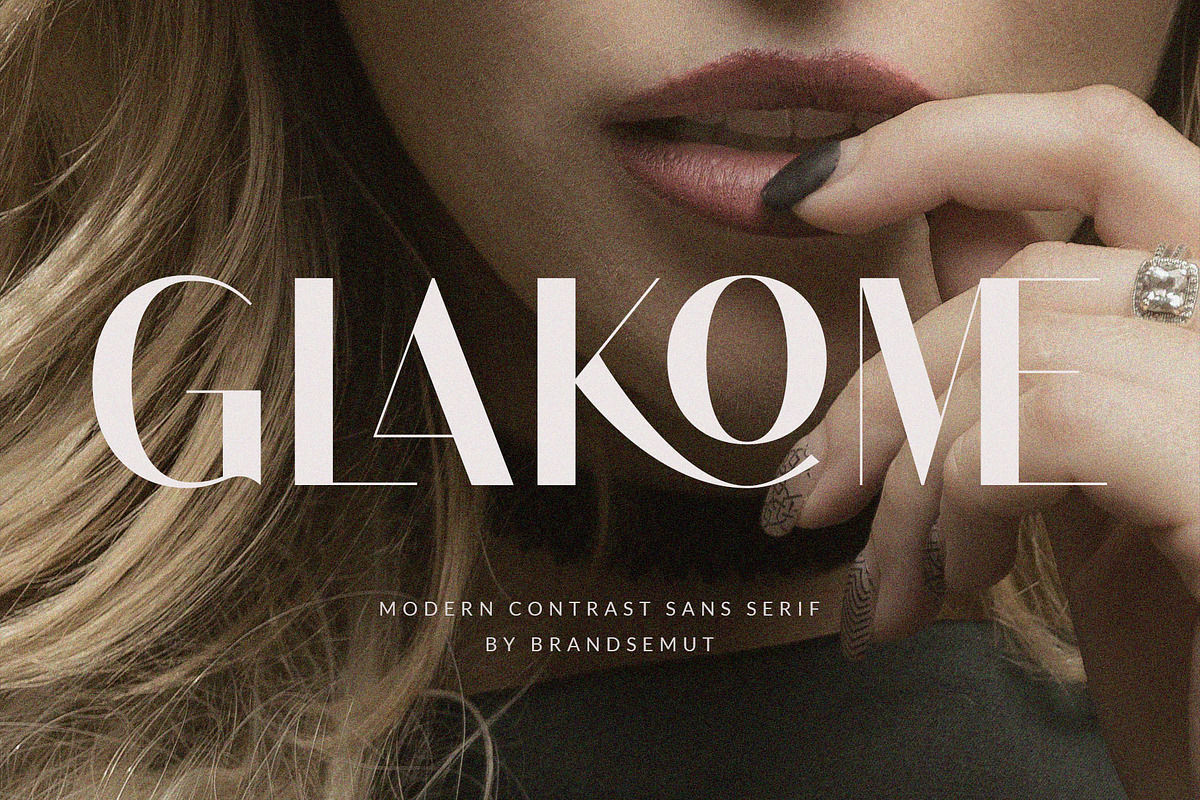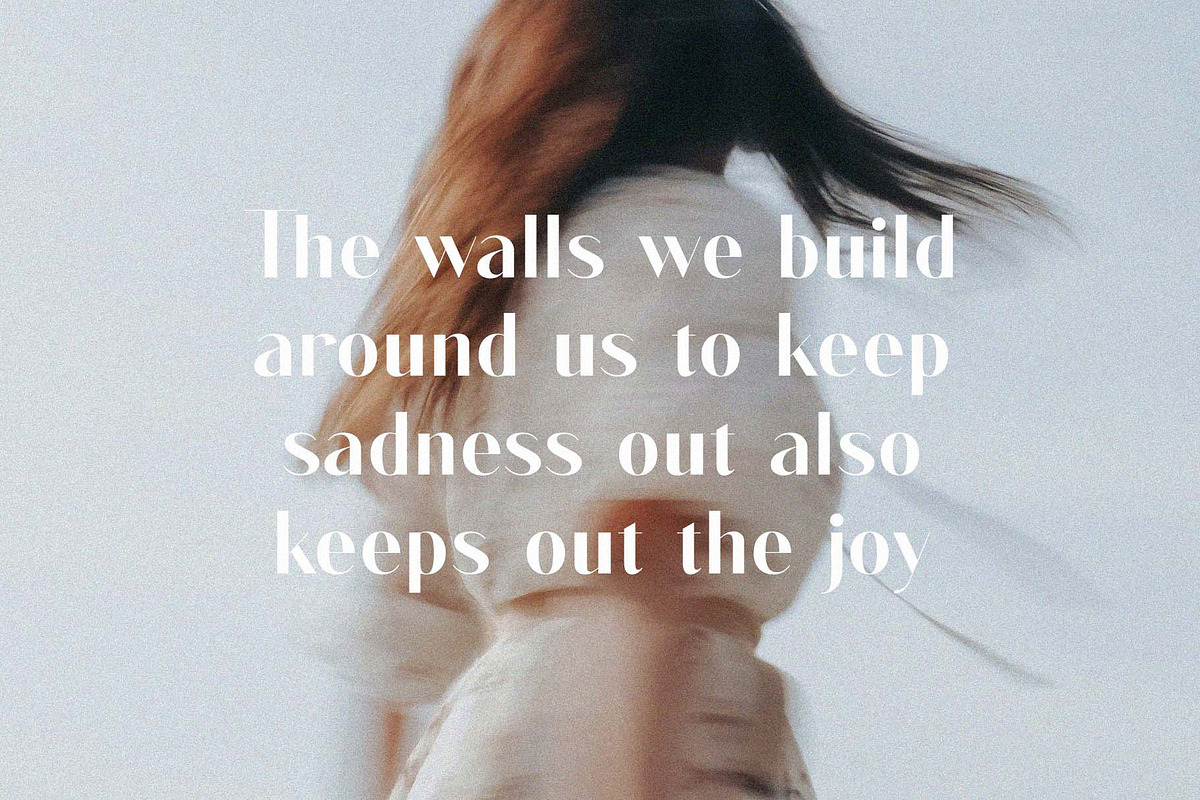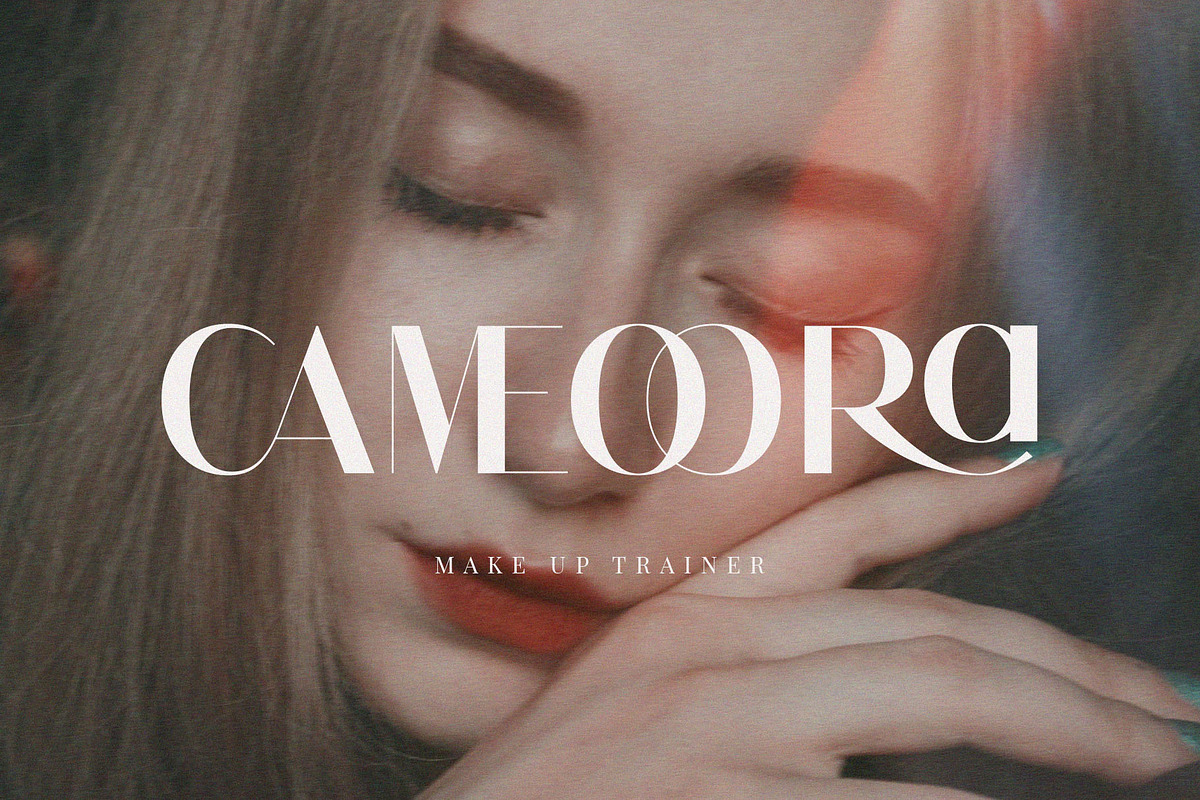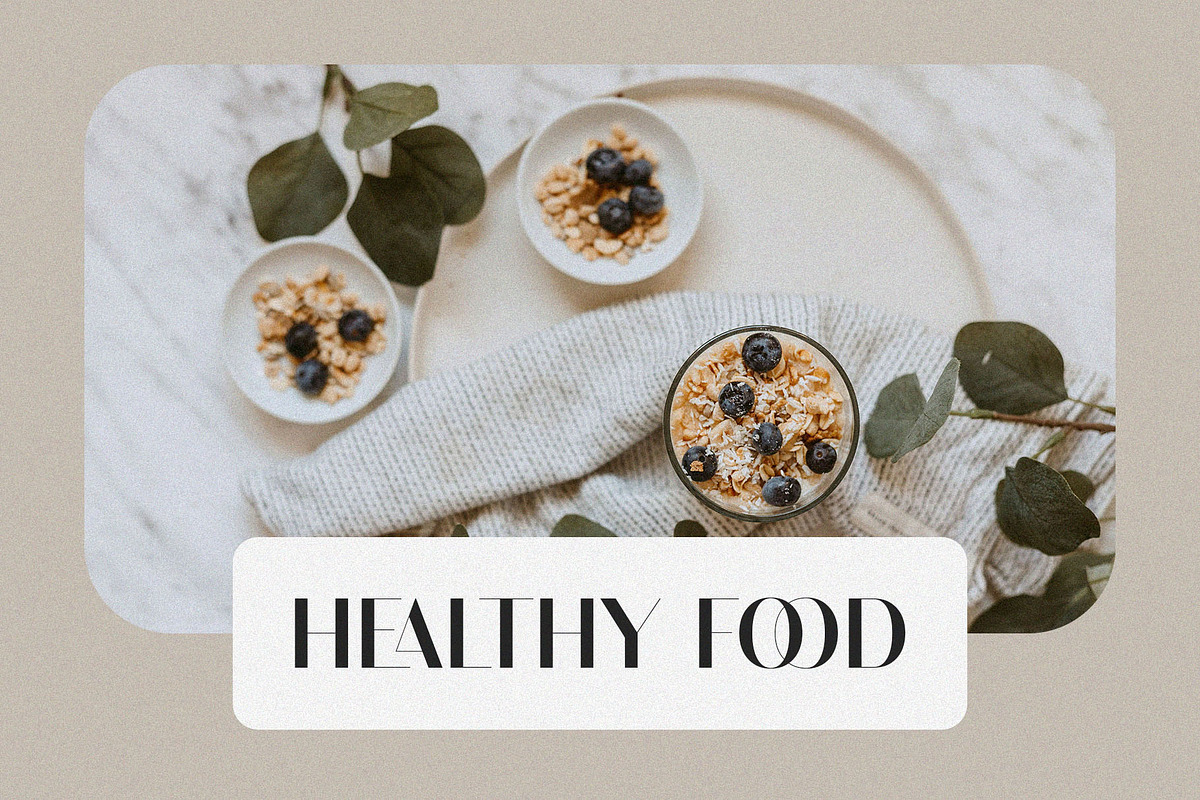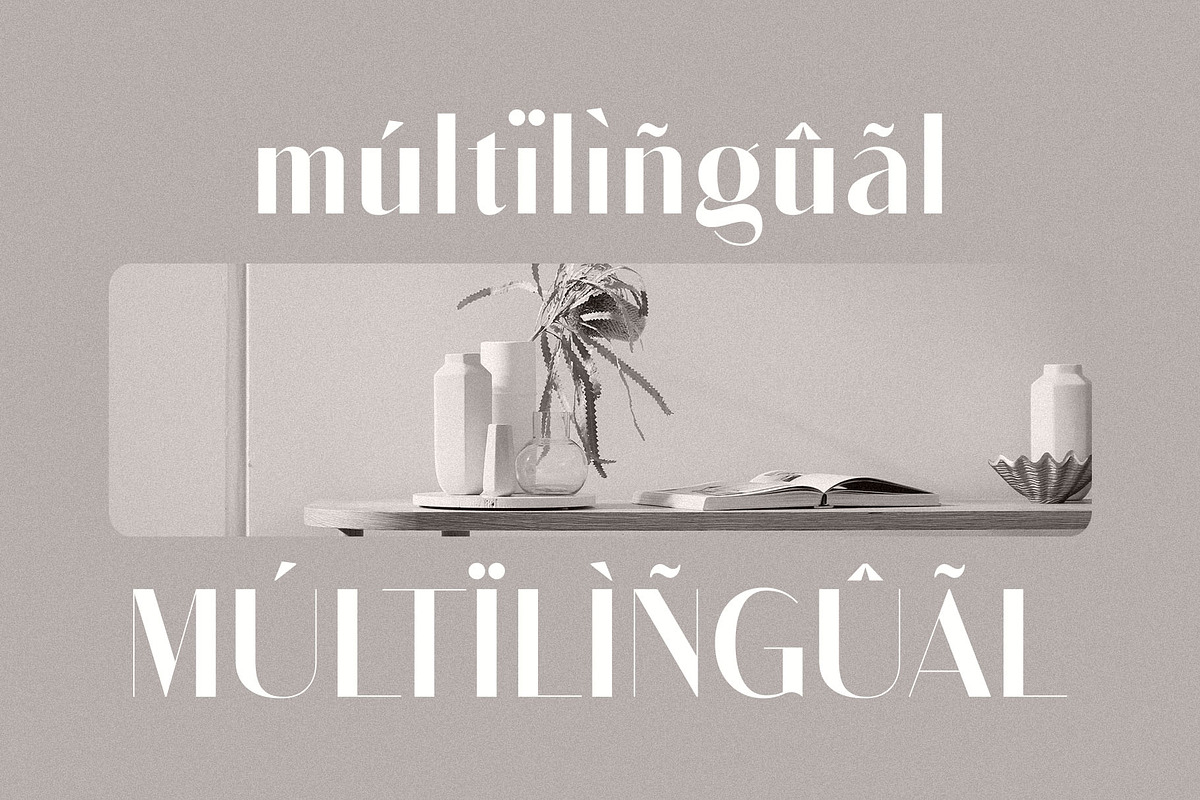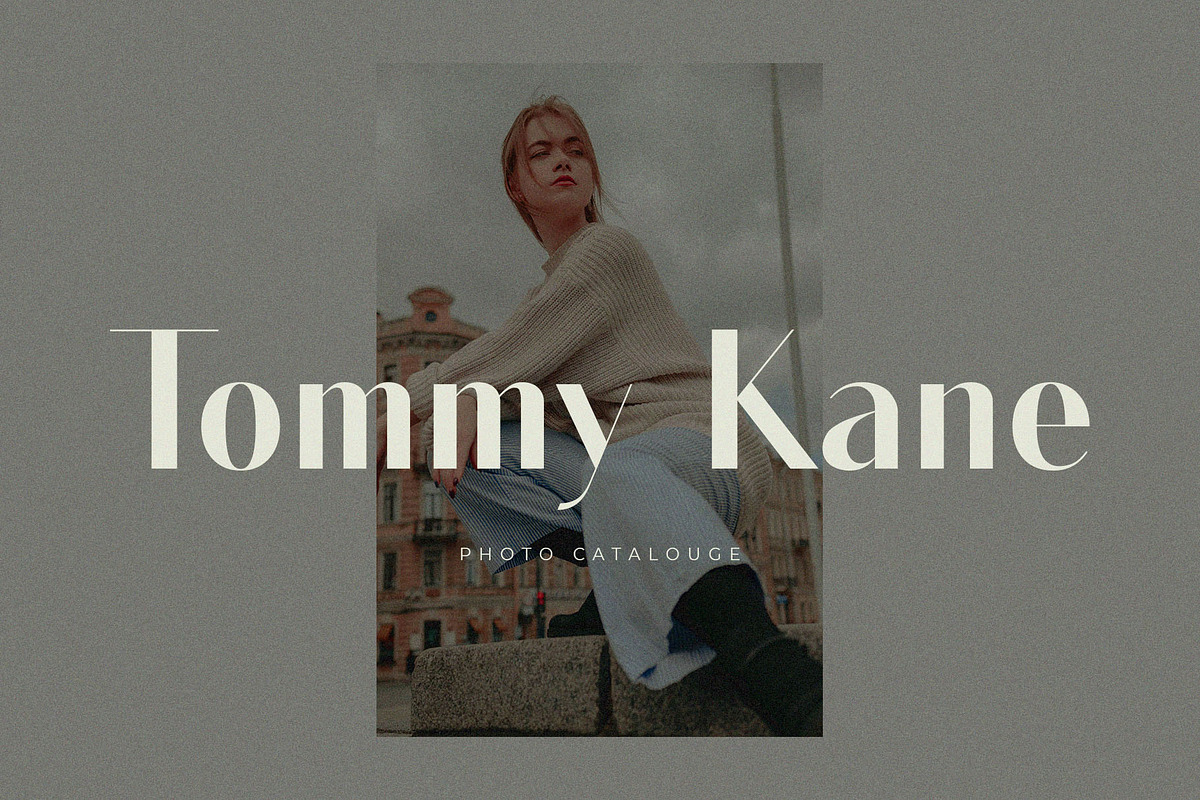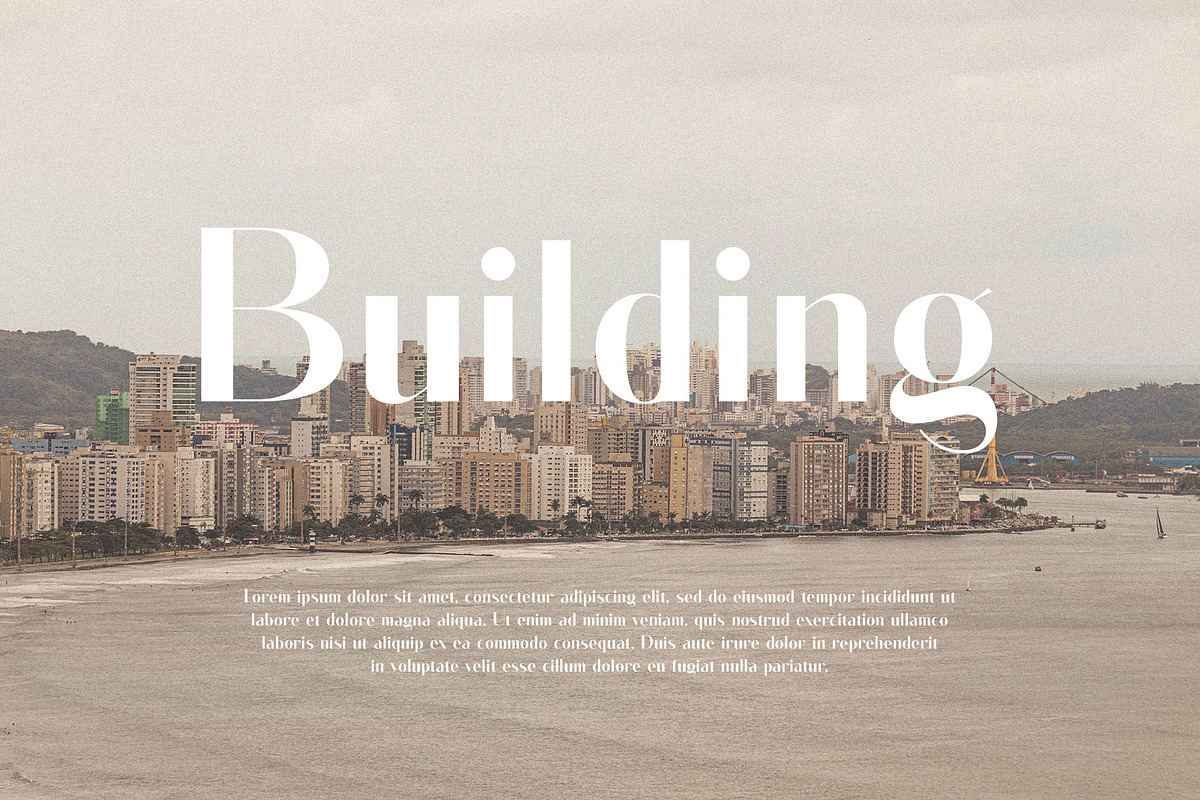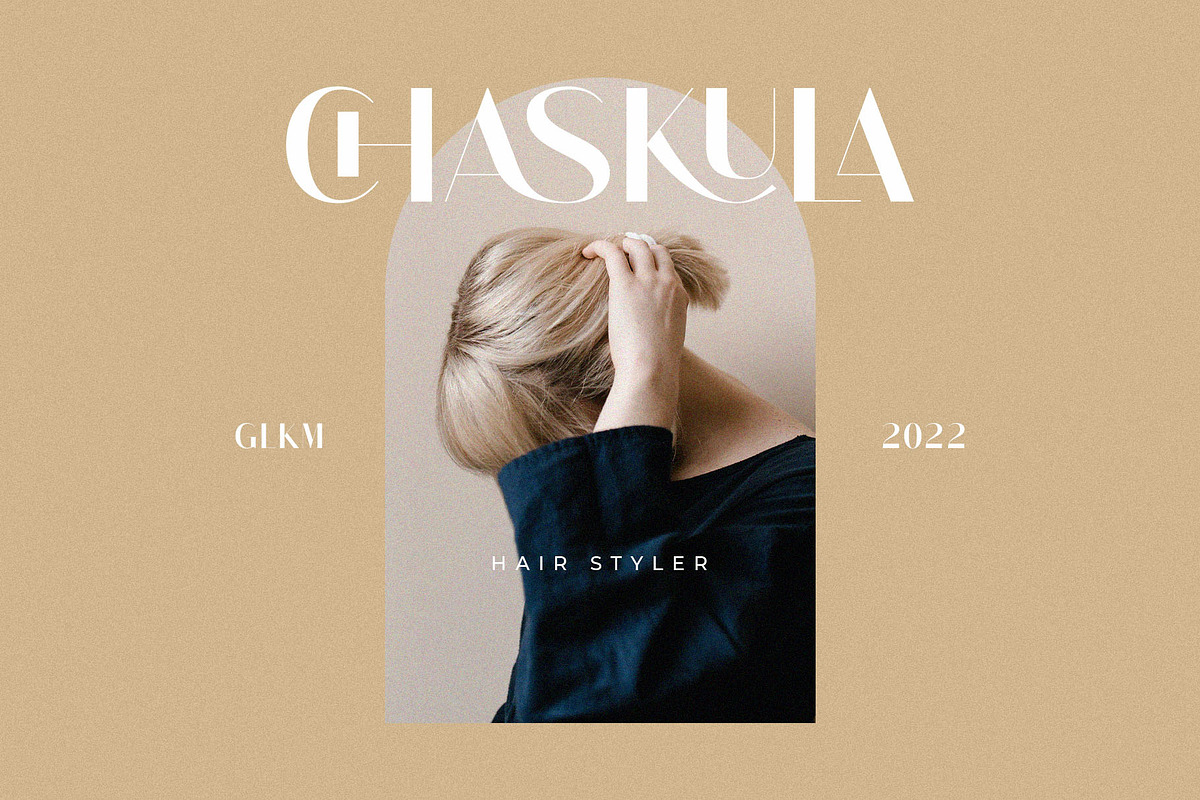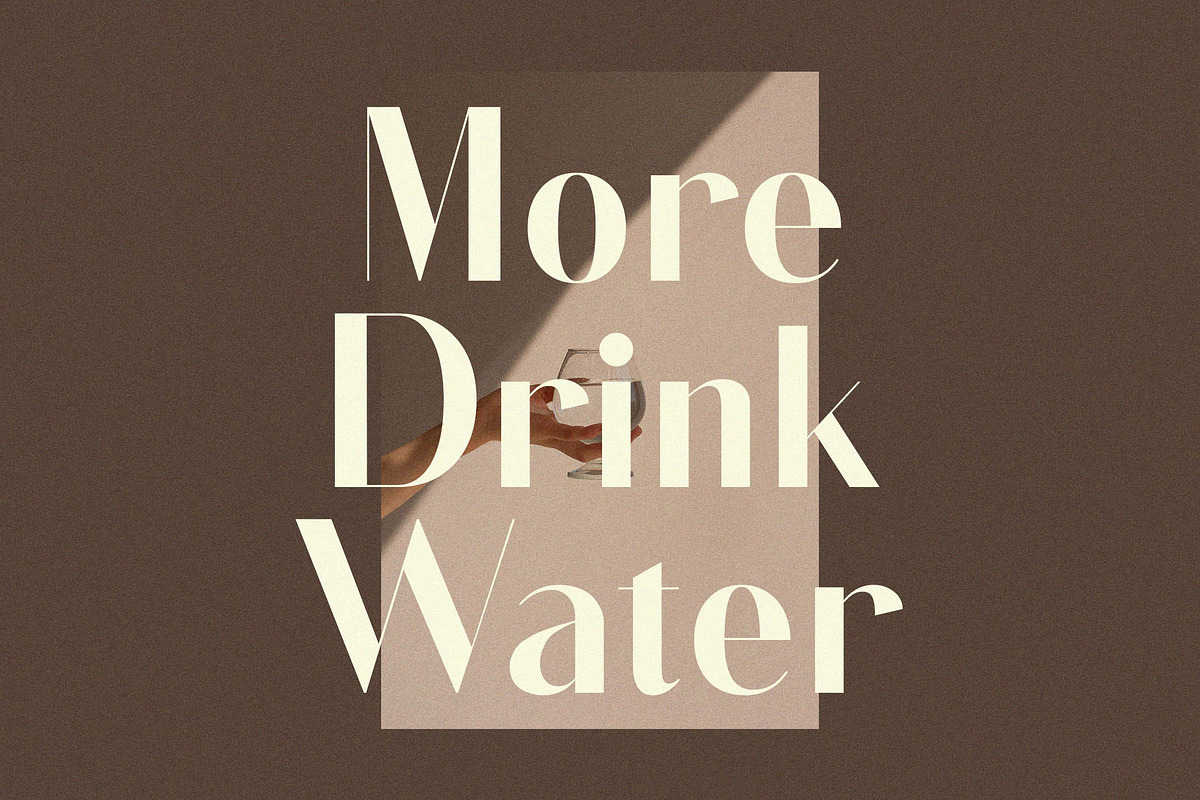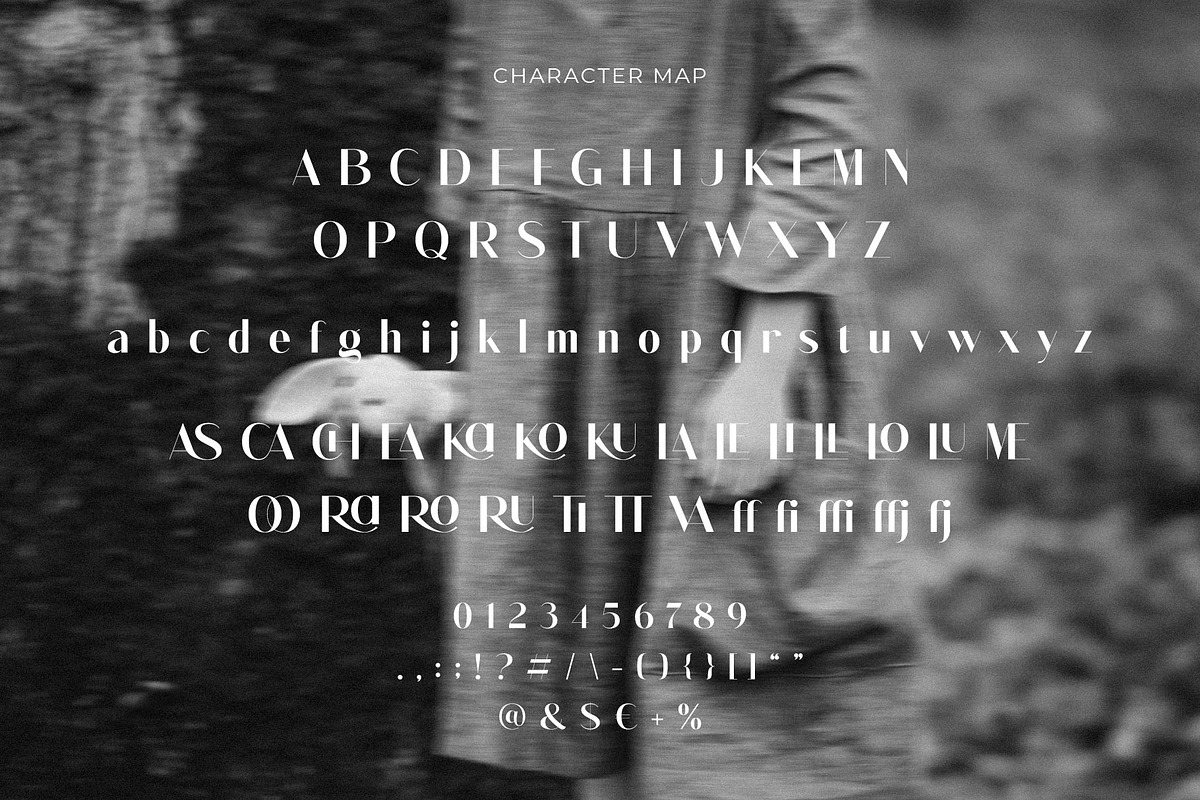
Glakome – Modern Contrast Sans Serif
Introducing Glakome Contrast Sans Serif. Glakome is a elegant and modern typeface, best used as a display for headings, logos, branding, magazines, product packaging and invitations. Glakome come with clean lines and smooth curves give any project an extra touch of class.